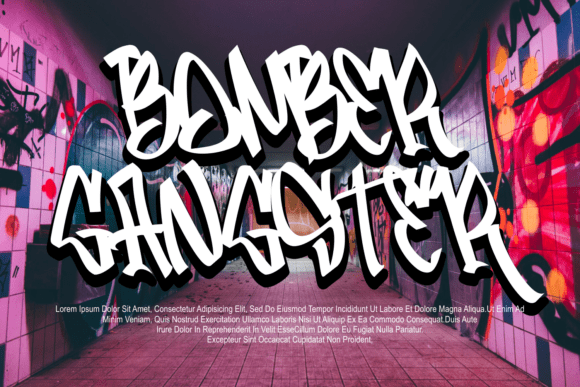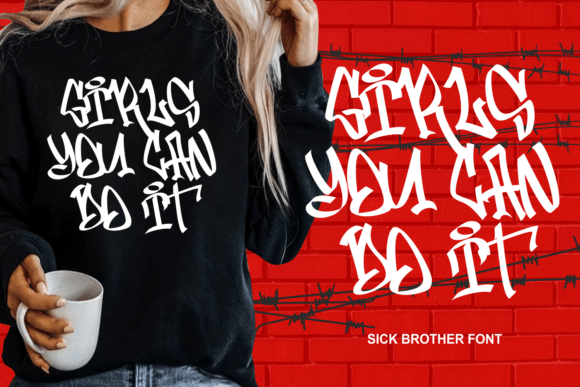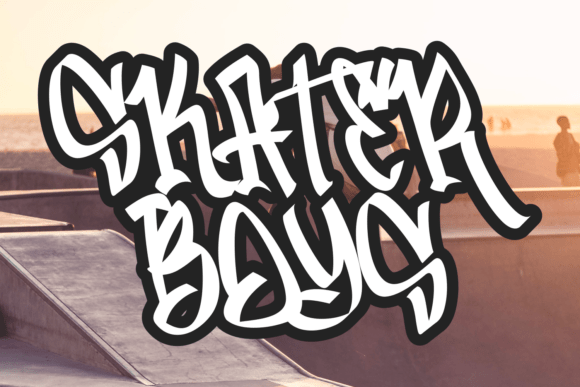
Sick Brother Font
Immerse yourself in the raw vitality of urban graffiti with Sick Brother, a truly unique font inspired by the rebellious spirit of street art. Capturing the unrefined, underground vibes resonating from the heart of city landscapes, Sick Brother redefines street art into extraordinary typography. This sculptural style, bursting with distinctive oscillations, draws inspiration from the spray-painted masterpieces on city walls and transforms them into a thrilling yet familiar typographic adventure. For visionaries who crave bold audacity in their creative endeavors, Sick Brother epitomizes the core essence of urban art culture, bringing it right into your fingertips. Harness the visceral energy of Sick Brother and breathe new life into your projects, today.